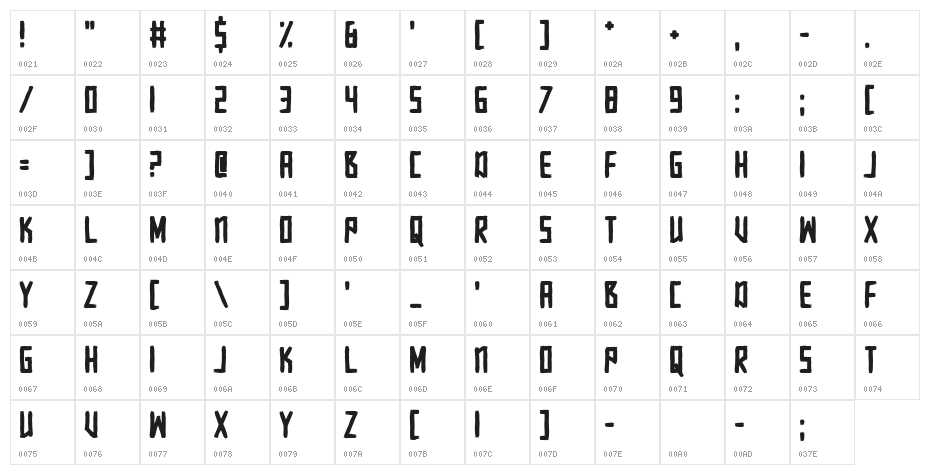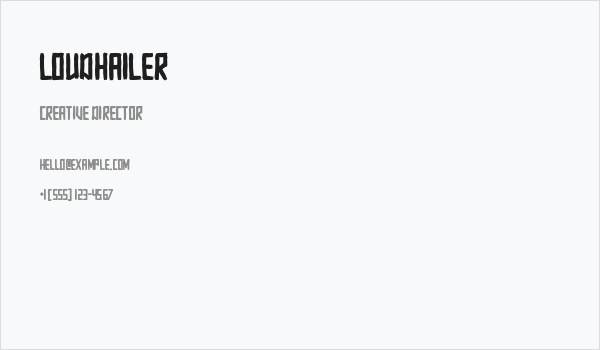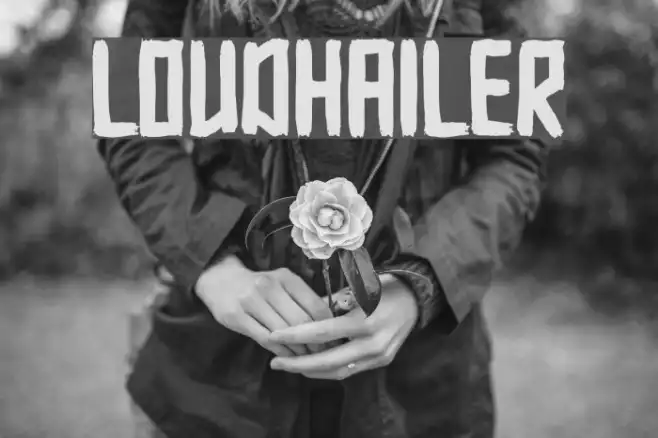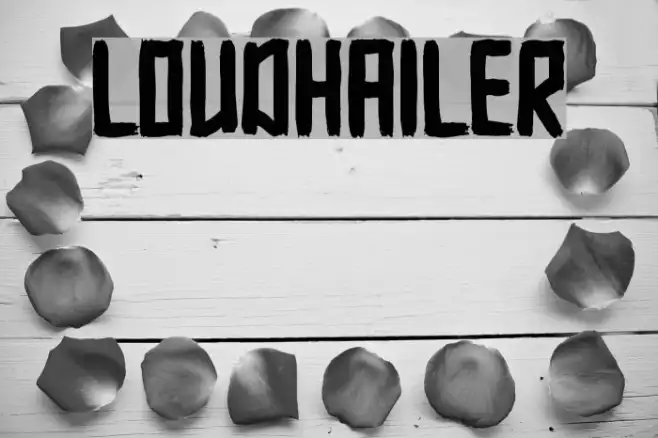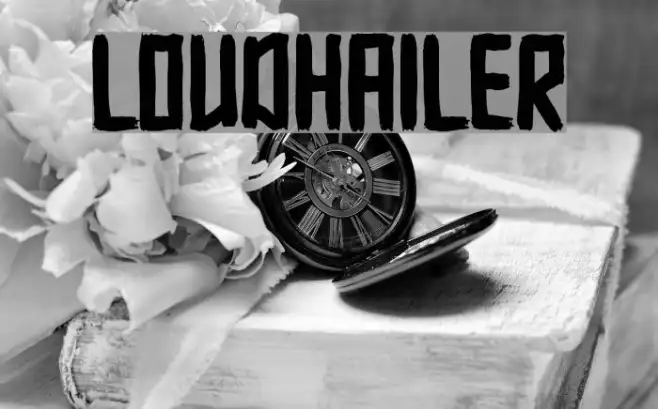
Loudhailer Font
Loudhailer Description
This font exhibits a bold and dynamic style with a hand-painted appearance, characterized by thick, uneven strokes that convey a sense of energy and movement. The uppercase letters are robust and slightly irregular, giving them a raw, organic feel. The lowercase letters maintain this rugged aesthetic, ensuring consistency across the typeface. Numbers and special characters follow the same design principles, making the font versatile for various applications. Its unique style is reminiscent of street art or graffiti, making it suitable for projects that require a bold, artistic touch.
| Proposed Projects | Ideal for posters, album covers, streetwear branding, and urban-themed designs. |